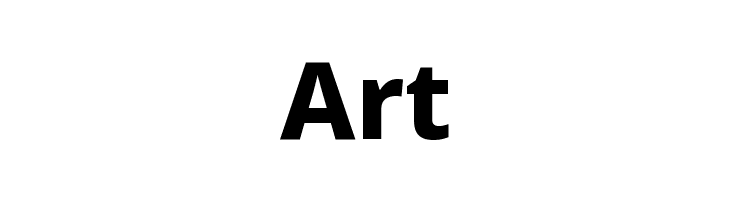
Semi-condensed sans-serif font with medium weight.
A thin, semi-condensed, modern sans-serif with clean lines and high legibility.
A modern, thin, and elegant font with uniform strokes and excellent legibility.
A bold, modern sans-serif typeface with excellent readability.
A bold, modern sans-serif font with a clean and strong appearance.
A modern, extra bold italic sans-serif font with a dynamic and assertive style.
A bold and italic typeface with a modern, clean design.
A clean, modern, extra condensed sans-serif font with uniform strokes and minimal contrast.
A modern, extra condensed sans-serif font with clean lines and high legibility.